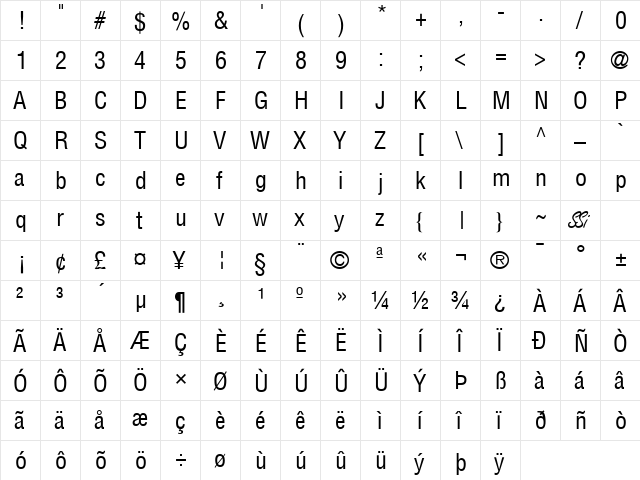
Context Condensed SSi Condensed Font Preview
Context Condensed SSi Condensed
Design Context for Context Condensed SSi Typeface
Context Condensed SSi offers clean, dependable letterforms without strong stylistic allegiance, making it a practical choice for designers who need flexibility. The condensed width makes it efficient for tight spaces without sacrificing legibility.